Resistenza would love the opportunity to partner with you in creating meaningful, beautiful letterforms. We tailor our scope of services to suit your individual needs; we are craftsman and use a range of techniques, including extensive hand drawing and cutting-edge digitisation. Each project is different, but typically our service offering falls into one of the three categories below
Custom Typefaces
We have experience in helping businesses interpret their vision and communicate brand ideas. Delivering custom typefaces that empower you and uniquely set your business apart from your peers. We specialise in expressive letterforms and would love to assist in creating typefaces with lots of personality and originality. We are skilled calligraphers and play to our penmanship strengths, designing calligraphic and brush script styles, attention-grabbing display type and faces inspired by handwriting (rather than text and editorial typefaces). We believe these organic forms derived from the movement of our hand have a lot of impact in today’s digital environments. We begin the concept design with handmade sketches and get your input on direction and style before we develop the design through an iterative process. Using tracing paper to refine the drawings and expand the characters of the alphabet that are later translated into the digital realm using our preferred font development program GlyphsApp. Please get in contact to discuss how we can assist you in creating a unique typeface!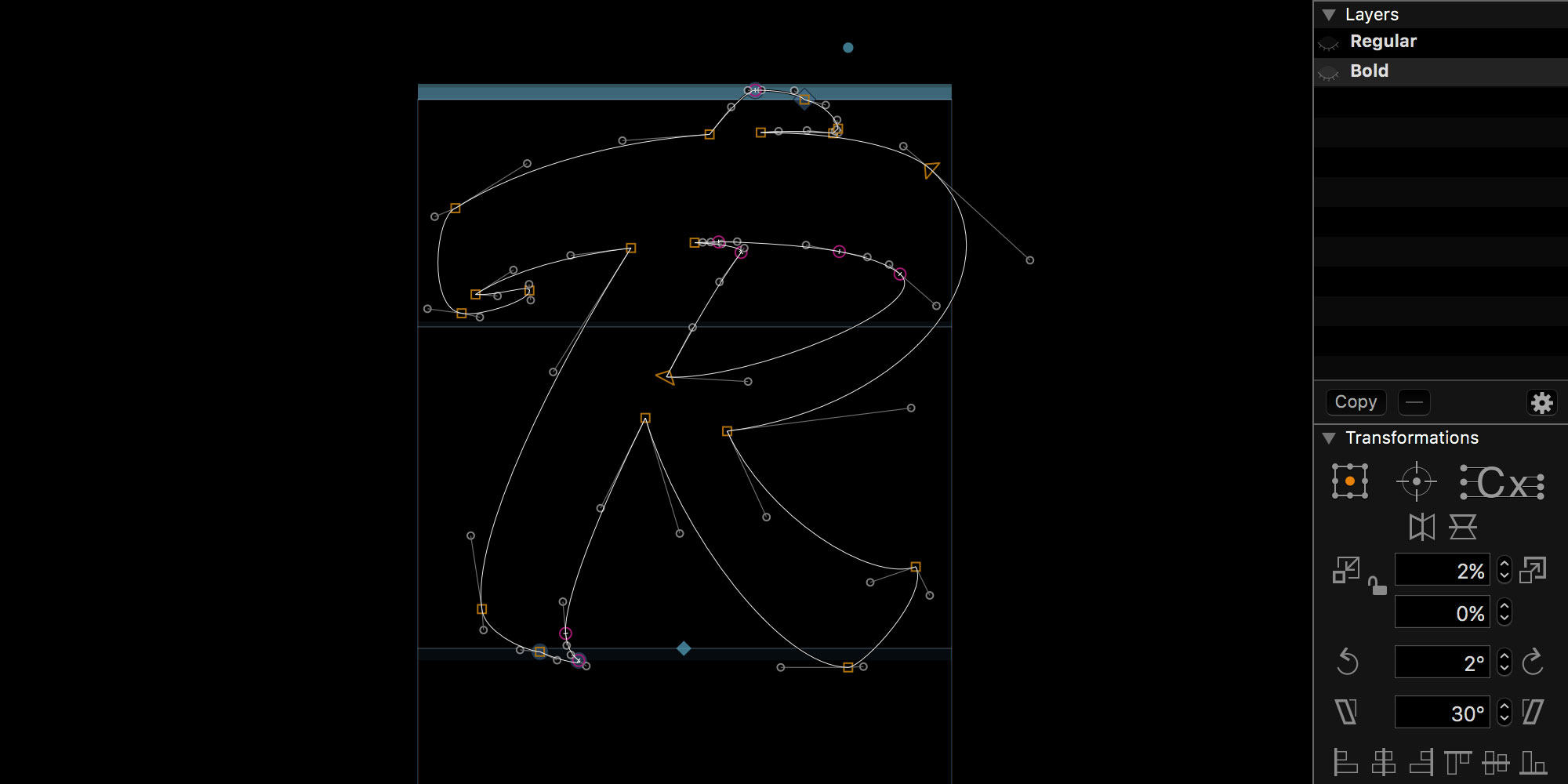
Lettering & Calligraphy
Penmanship is our passion, and we love to transform words into artwork! We seek to illuminate your words with our expressive approaches to lettering and letterform creation. We use pen, paper, the traditional techniques of calligraphy and the gestural movements of brush script sign painting to create contemporary custom word treatments. Please get in touch to see how we can assist you in telling your story with beautiful letters and words.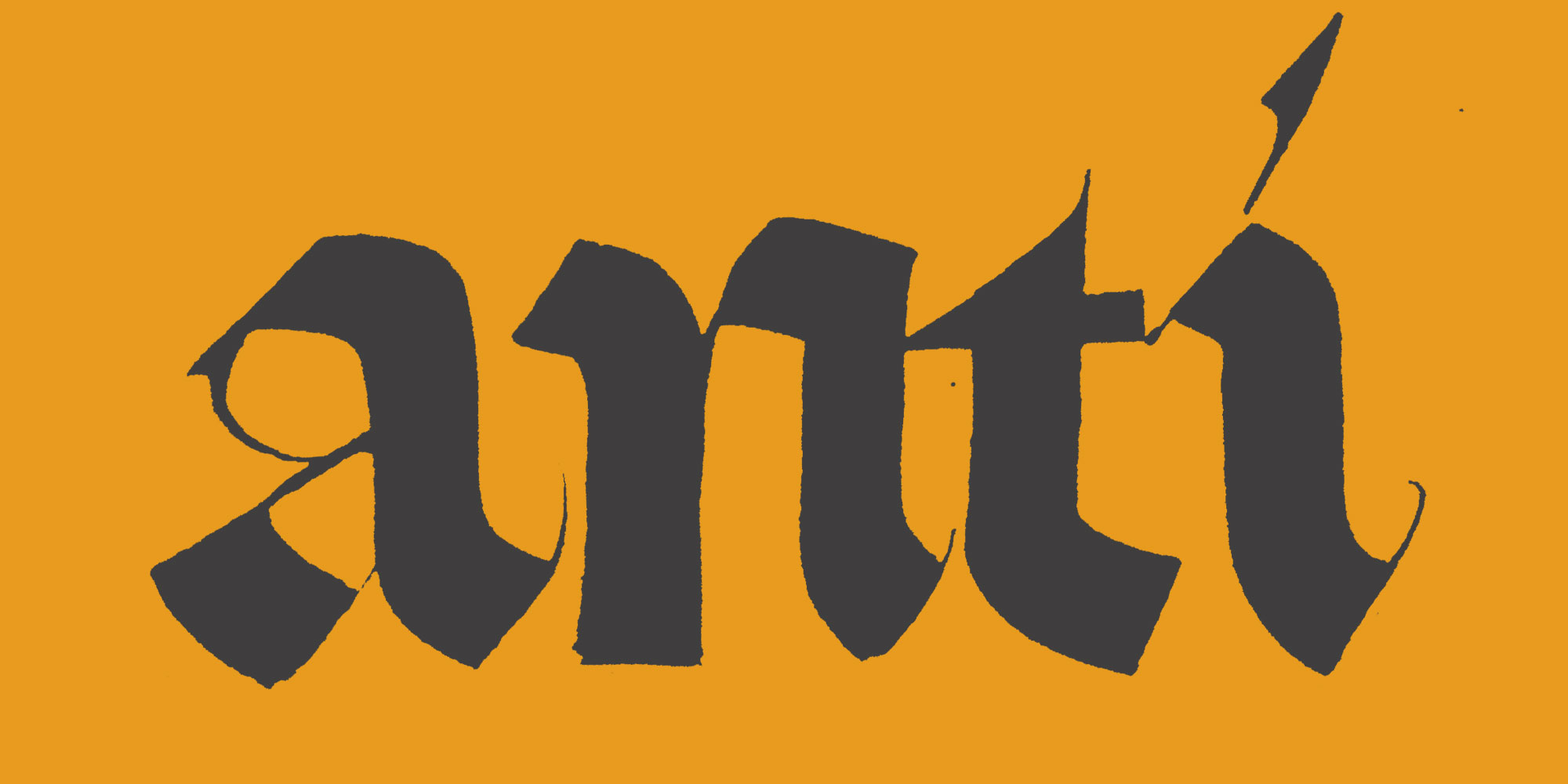
Consulting & Identity Commissions
Typographic treatment brings your brand to life. The letterforms you use to represent yourself should communicate your values and personality to your customers (or audience). We use our lettering skills to create custom letterforms for product, service, event or business branding and would love to work with you on your typographic identity requirements. When designing a logotype, wordmark or visual identity we first work by hand before polishing and refining the letterforms digitally. Our identity process is immersive: we go on this journey with our clients. Each design methodology is personal to your needs, collaborative and done in partnership with you. Please get in touch to discuss your bespoke identity needs.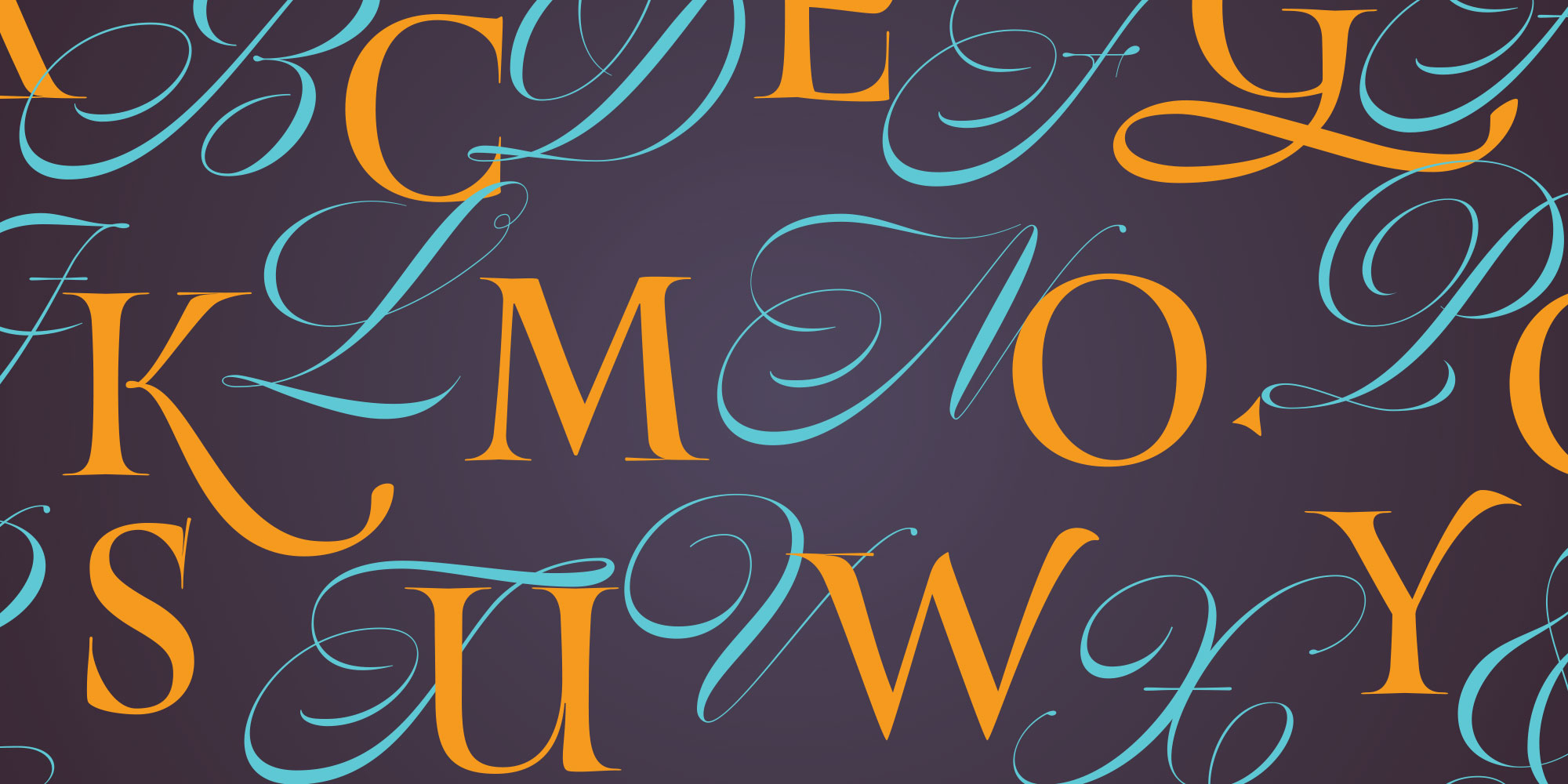